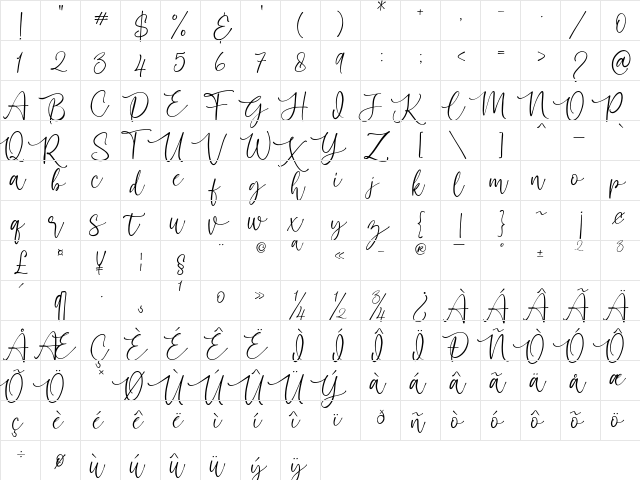
Sechillia Ruster Regular
| Foundry | Hanzel space |
| Designer | Hanief Farandi |
Design Context for Sechillia Ruster Typeface
Sechillia Ruster is a composed and adaptable typeface that performs quietly and consistently across a wide range of design contexts.